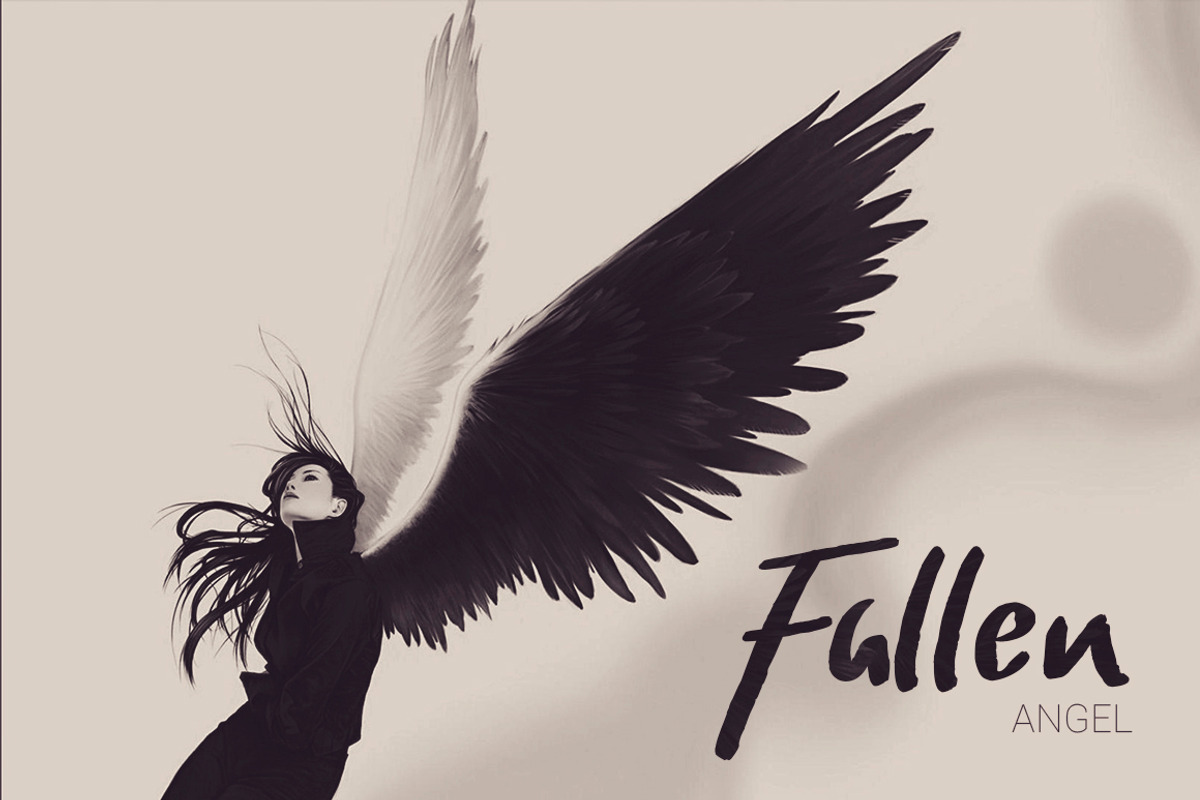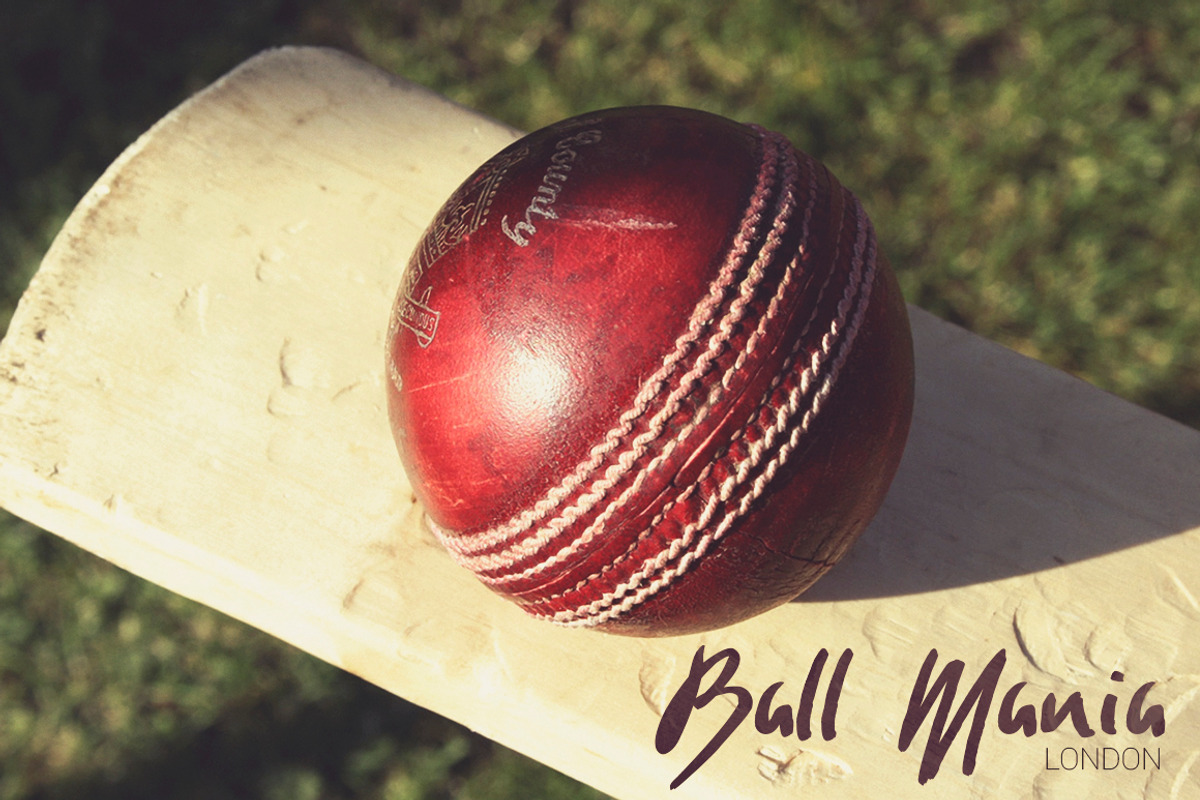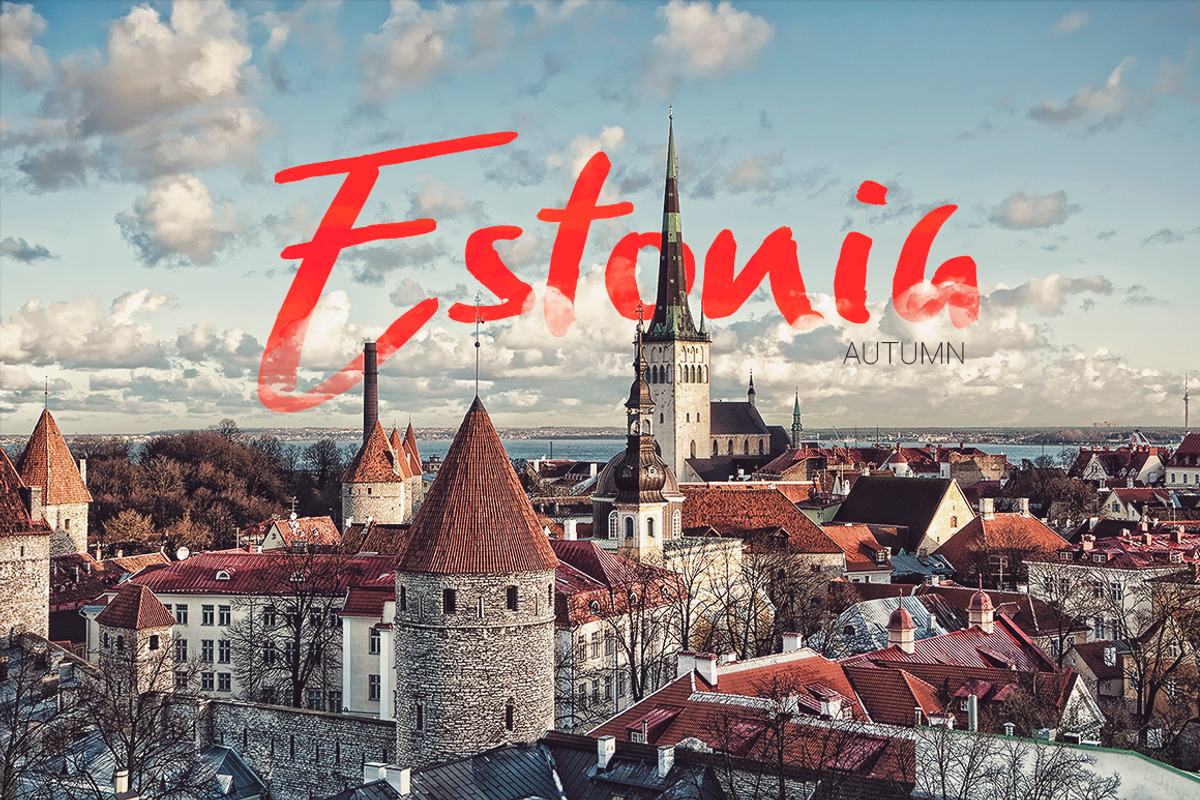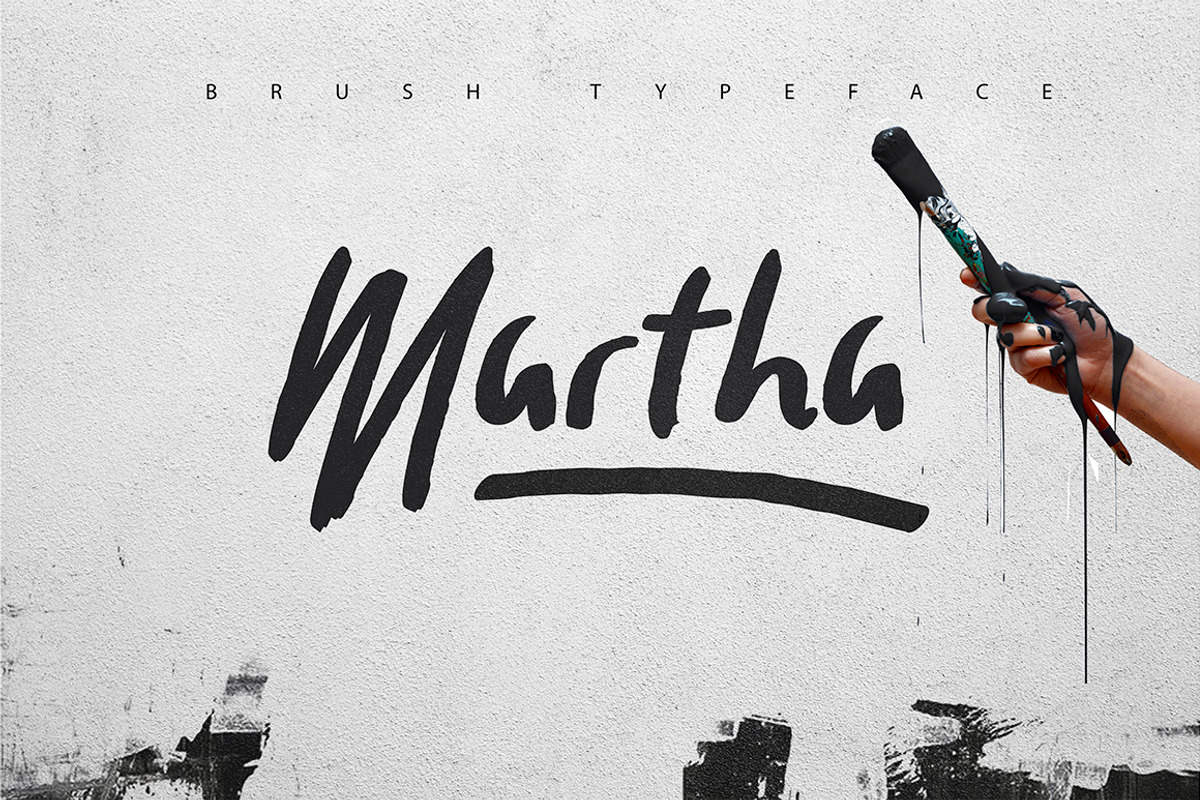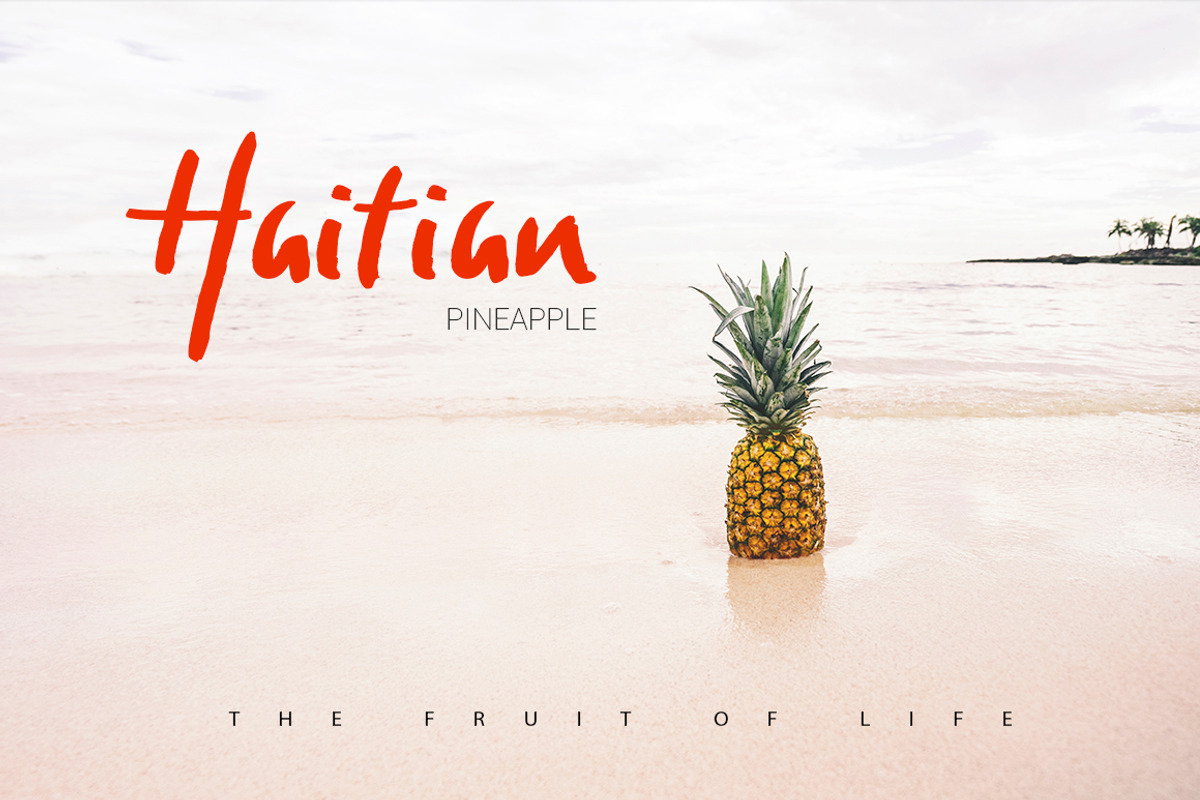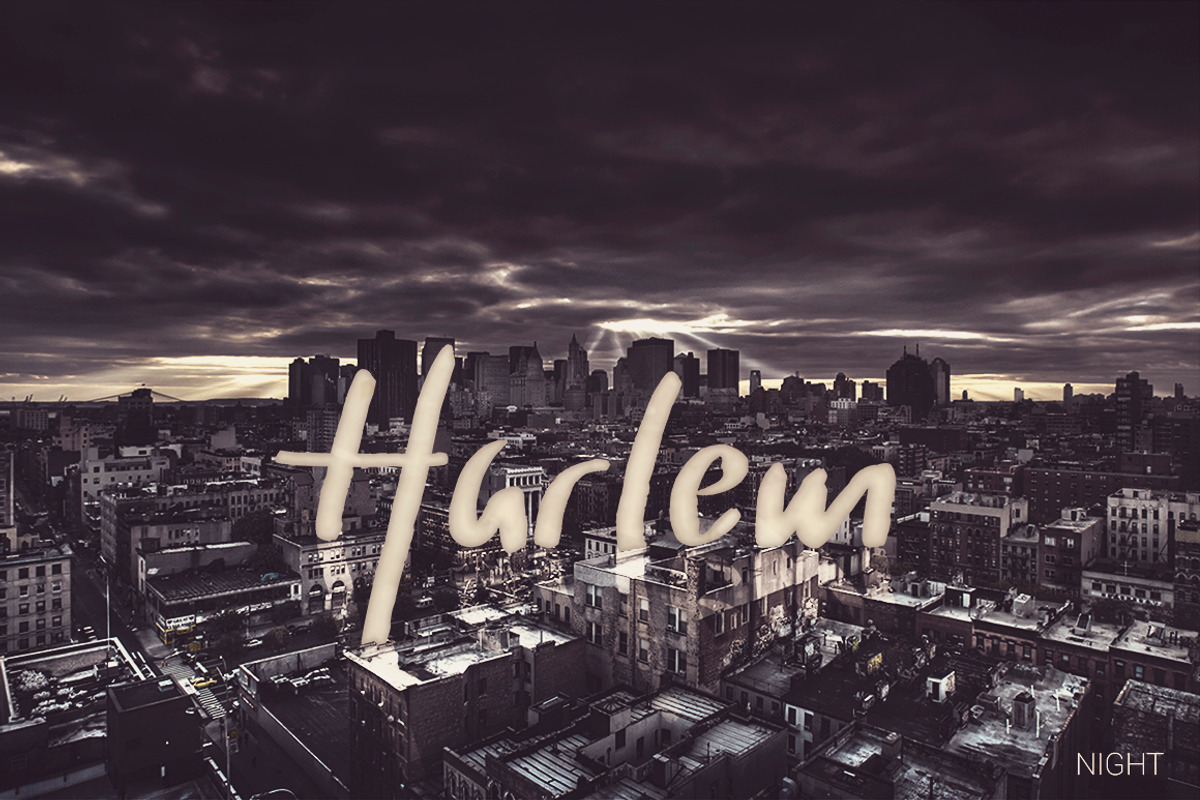
Martha Brush Typeface
Martha Brush Typeface by SmartDesigns is a font selected for branding, posters, packaging, typography.
Why Martha Brush Typeface is worth a look
Martha Brush Typeface by SmartDesigns fits naturally into Branding, posters, packaging, typography.